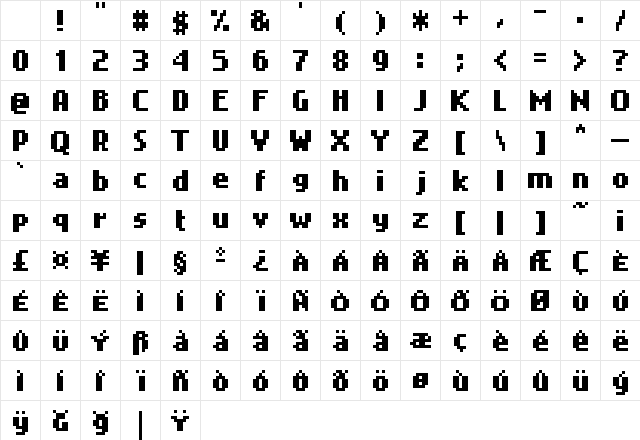
Complete Nokia Cellphone FC Small glyph index. Displaying only characters natively supported by Nokia Cellphone FC Small font.
Nokia Cellphone FC is a composed and adaptable typeface that performs quietly and consistently across a wide range of design contexts.